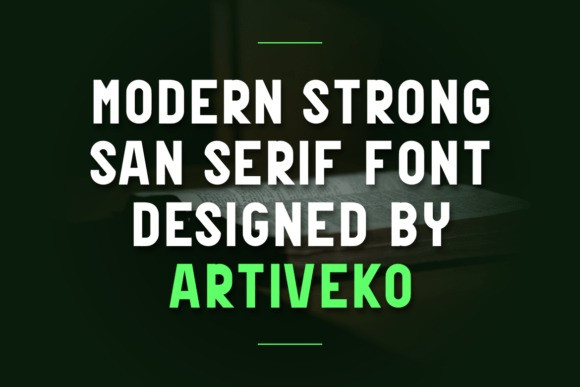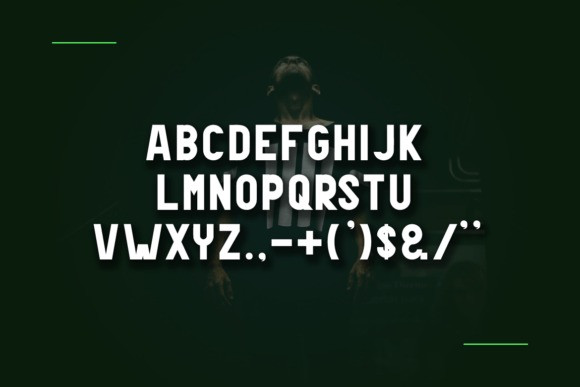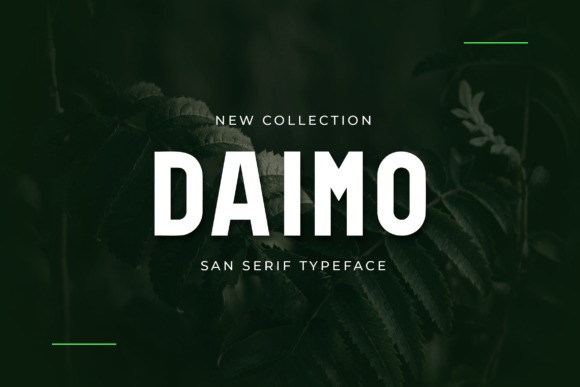
Daimo Font
Daimo Font is a strong and stylish sans serif font designed to deliver clarity with character. With clean strokes, balanced spacing, and a neutral yet confident feel, Daimo is built for versatility — making it ideal for branding, headlines, posters, packaging, web design, and editorial projects.